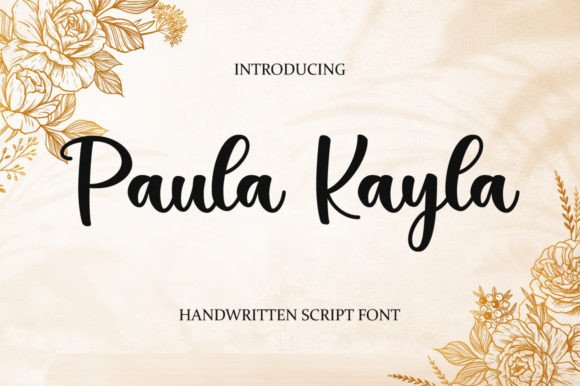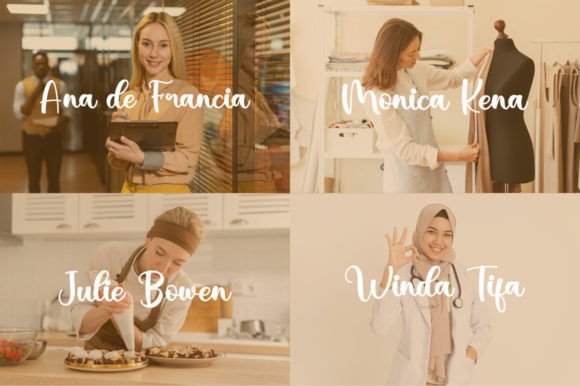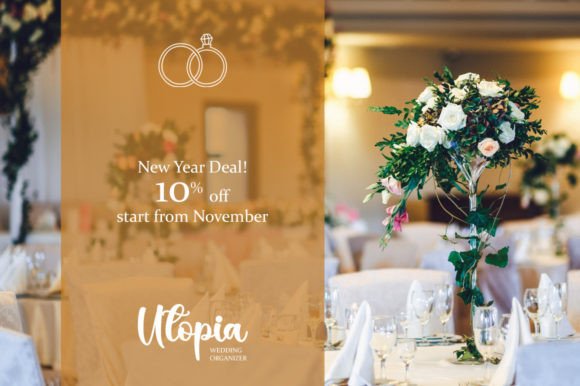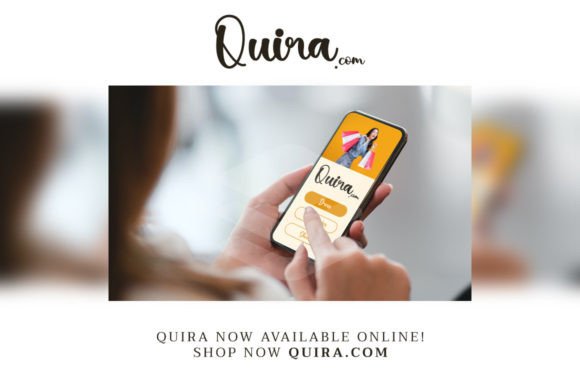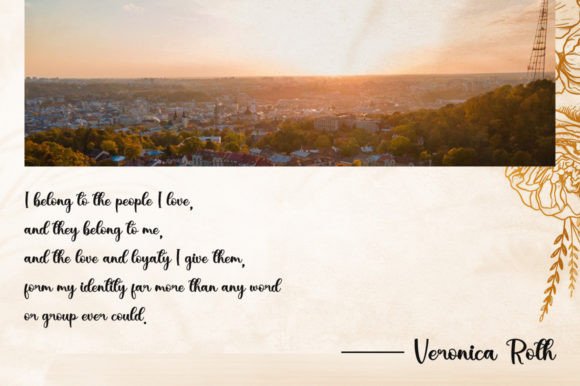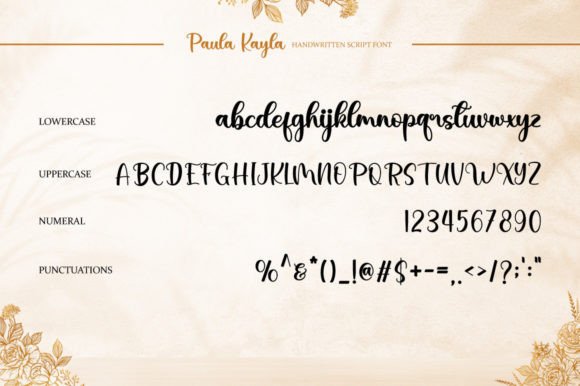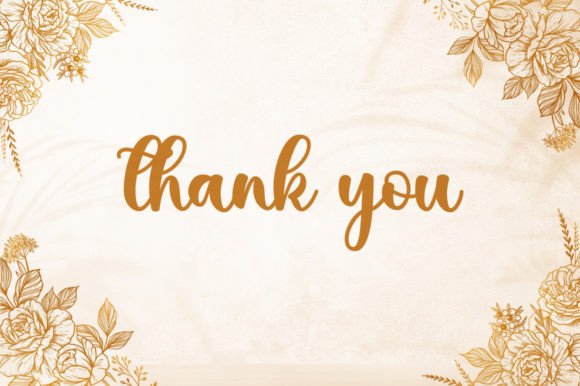
Paula Kayla Font
About Paula Kayla Font
“Paula Kayla” is a captivating and timeless handwritten font that radiates beauty and elegance. It stands as the ideal choice for crafting eye-catching logos, establishing memorable brand identities, and creating inspiring quotes that leave a lasting impact.
This font’s lovely and timeless character makes it versatile and adaptable to various design contexts. Whether you’re designing a logo that needs to convey sophistication and charm, creating branding materials that require a touch of elegance, or crafting quotes that inspire and resonate with your audience, “Paula Kayla” rises to the occasion.
In the world of design, fonts play a pivotal role in defining brand personality, setting the tone, and capturing the essence of a message. “Paula Kayla” excels in these aspects by offering a handwritten style that is both beautiful and enduring. Its aesthetics evoke a sense of authenticity and refinement, making it an invaluable asset for designers looking to create memorable and impactful designs.
In summary, “Paula Kayla” is more than just a font; it’s a timeless tool for creating captivating and meaningful design elements. Its beauty and elegance make it a top choice for designers seeking to make a lasting impression with their logos, branding, and quotes. Whether you’re an experienced designer or embarking on a new creative journey, “Paula Kayla” is the font that can add a touch of timeless sophistication to your work.